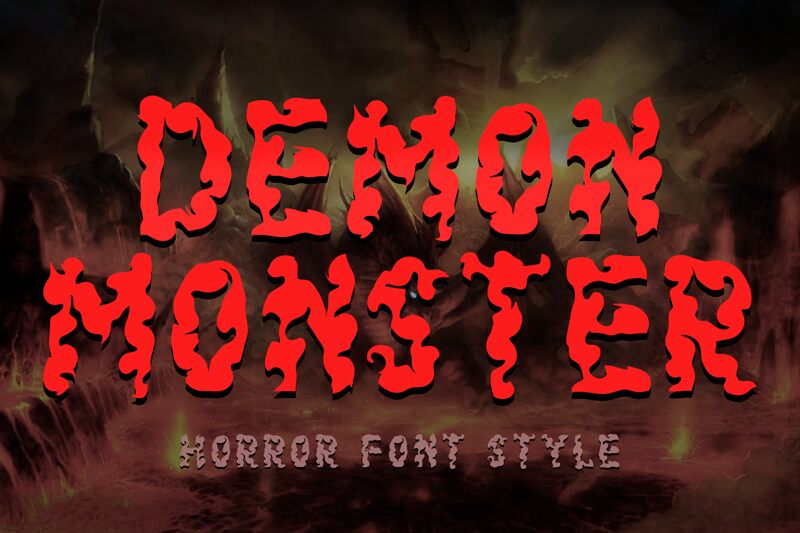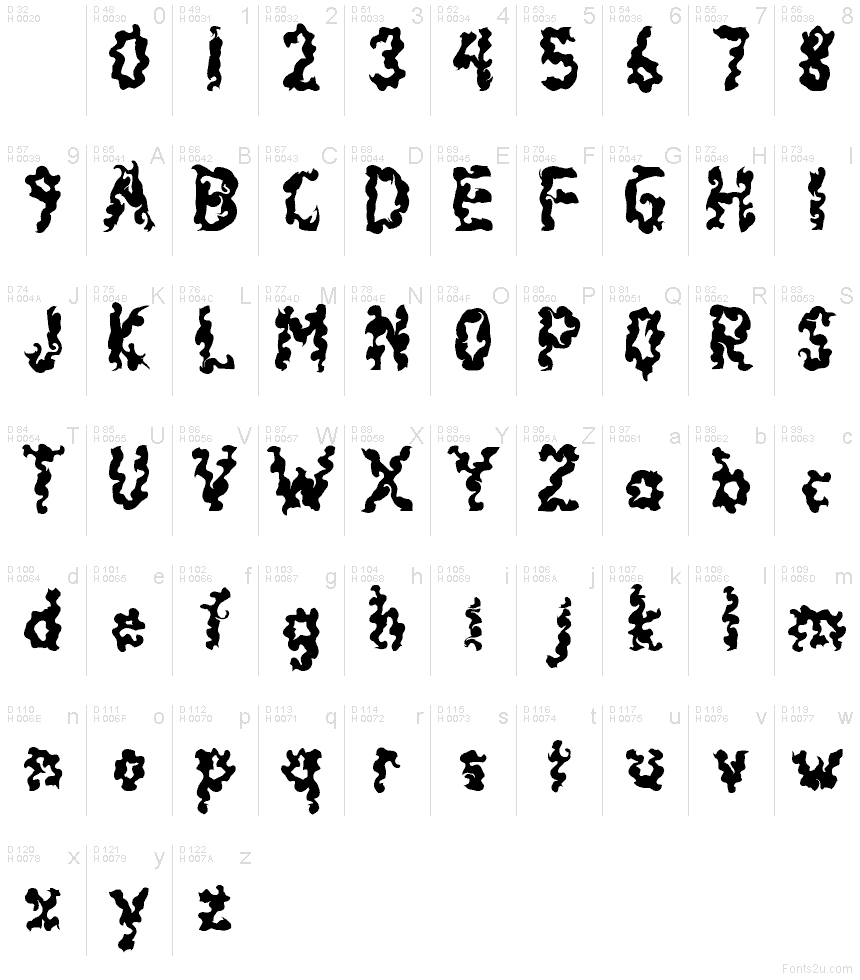
Demon Monster
Demon Monster font by Yoga Letter is a free Halloween display font built to summon instant chills. Thick, inky letters clump and drip like candle wax, with smoky tendrils that curl into spooky silhouettes. The rhythm feels lurching and organic, so headlines look wild and alive—great when you need the typography to do the scaring for you without extra graphics.
Using Demon Monster, your haunted house posters, party invitations, horror thumbnails, trick-or-treat signage, game titles, and seasonal stickers will scream on sight. It works beautifully big and bold; add a touch of letter-spacing for readability. Pair this free font with a clean, neutral sans for body copy to keep the chaos contained.